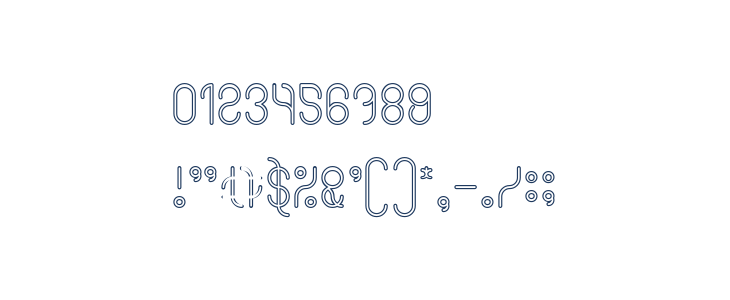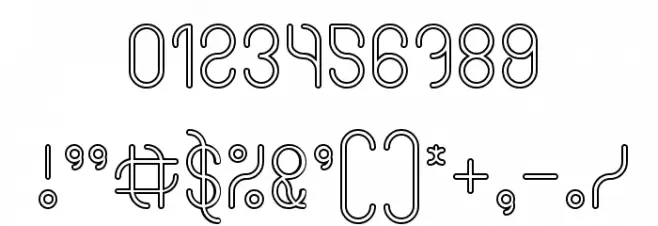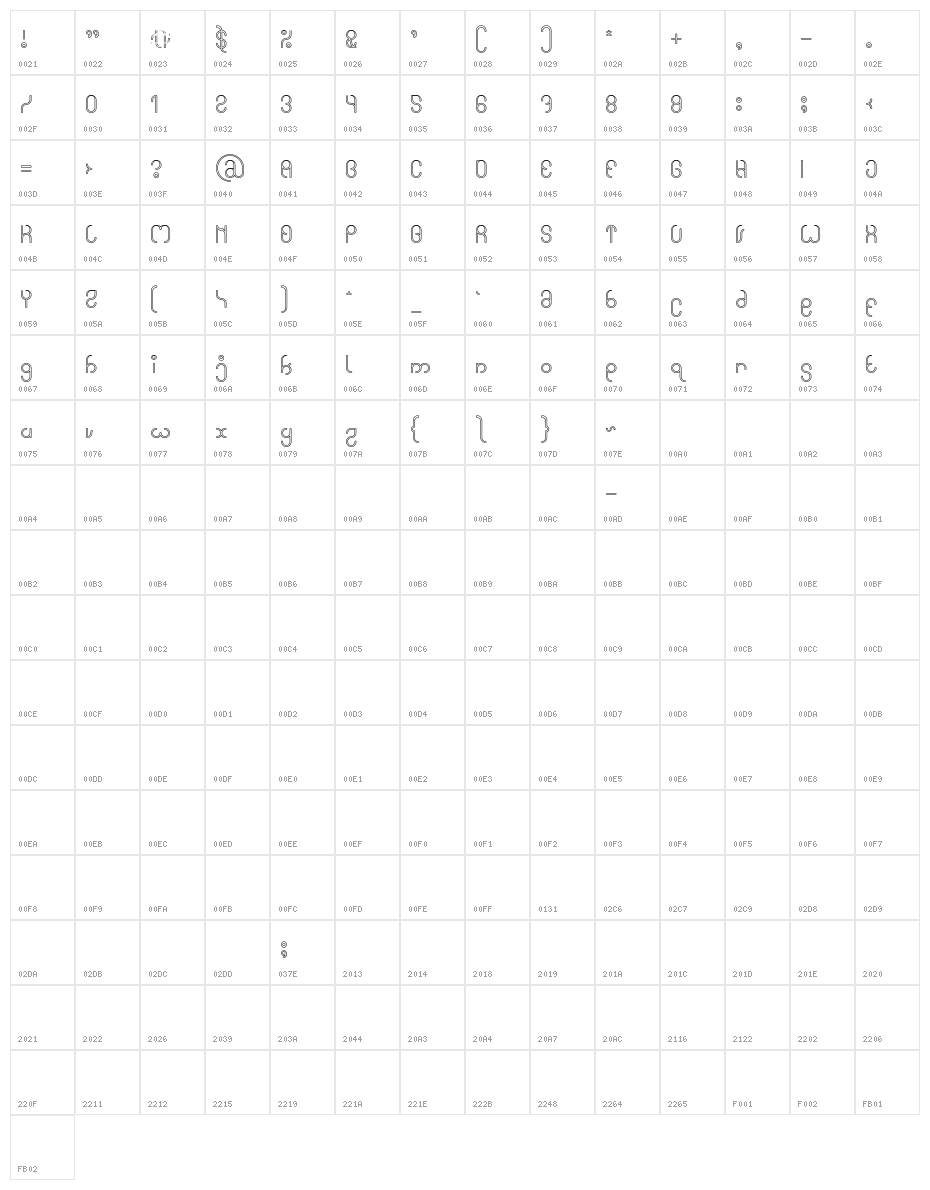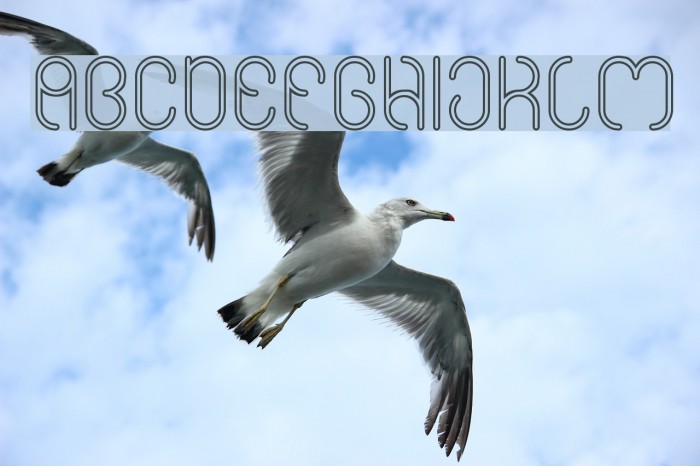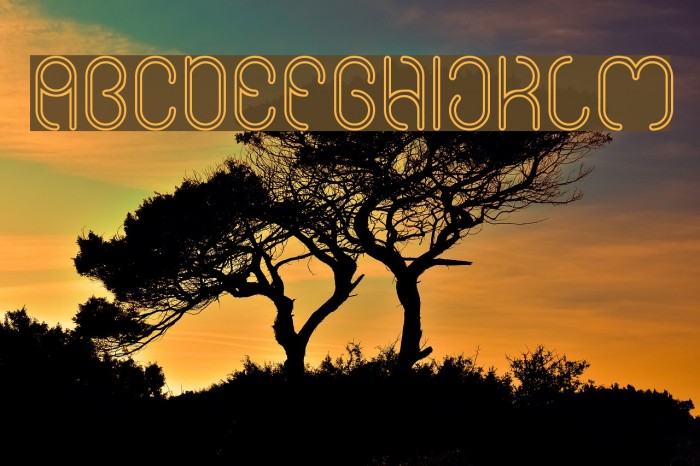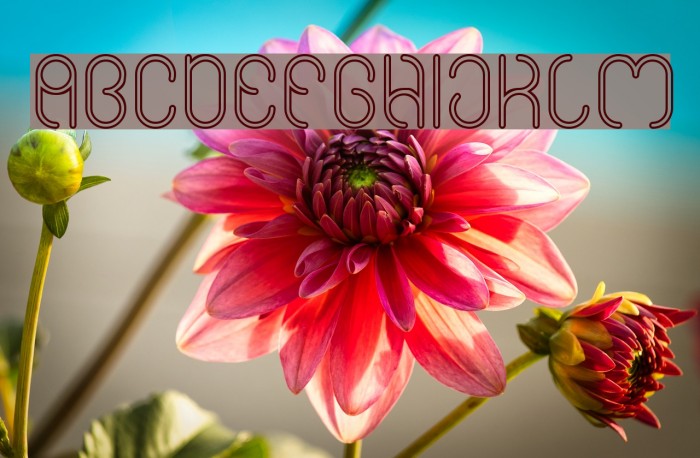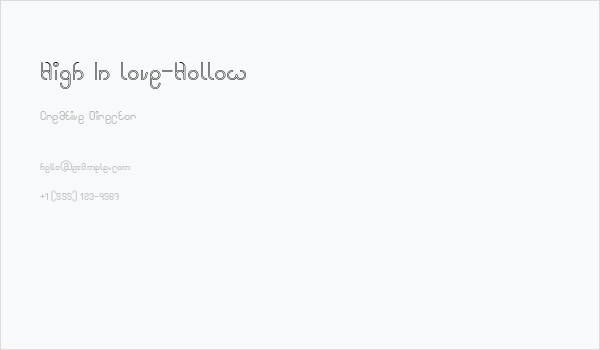
High In love-Hollow Font
High In love-Hollow Description
This font features a unique hollow design with a playful and modern aesthetic. The characters are outlined, creating a sense of openness and lightness. The uppercase letters have a consistent height and width, while the lowercase letters maintain a similar style with slight variations in curvature. The numbers are bold and clear, matching the overall style of the alphabet. Special characters are creatively designed, maintaining the hollow theme. This font is ideal for projects that require a distinctive and eye-catching look.
A modern, hollow font with playful and open character designs from Uncategorized fonts.
- Proposed Projects: Ideal for branding, posters, and creative digital designs that require a modern and unique appearance.